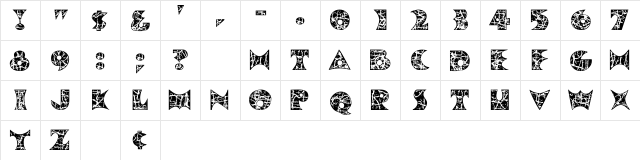
Pollock MF Initials
Design Context for Pollock MF Typeface
Pollock MF is a composed and adaptable typeface that performs quietly and consistently across a wide range of design contexts.